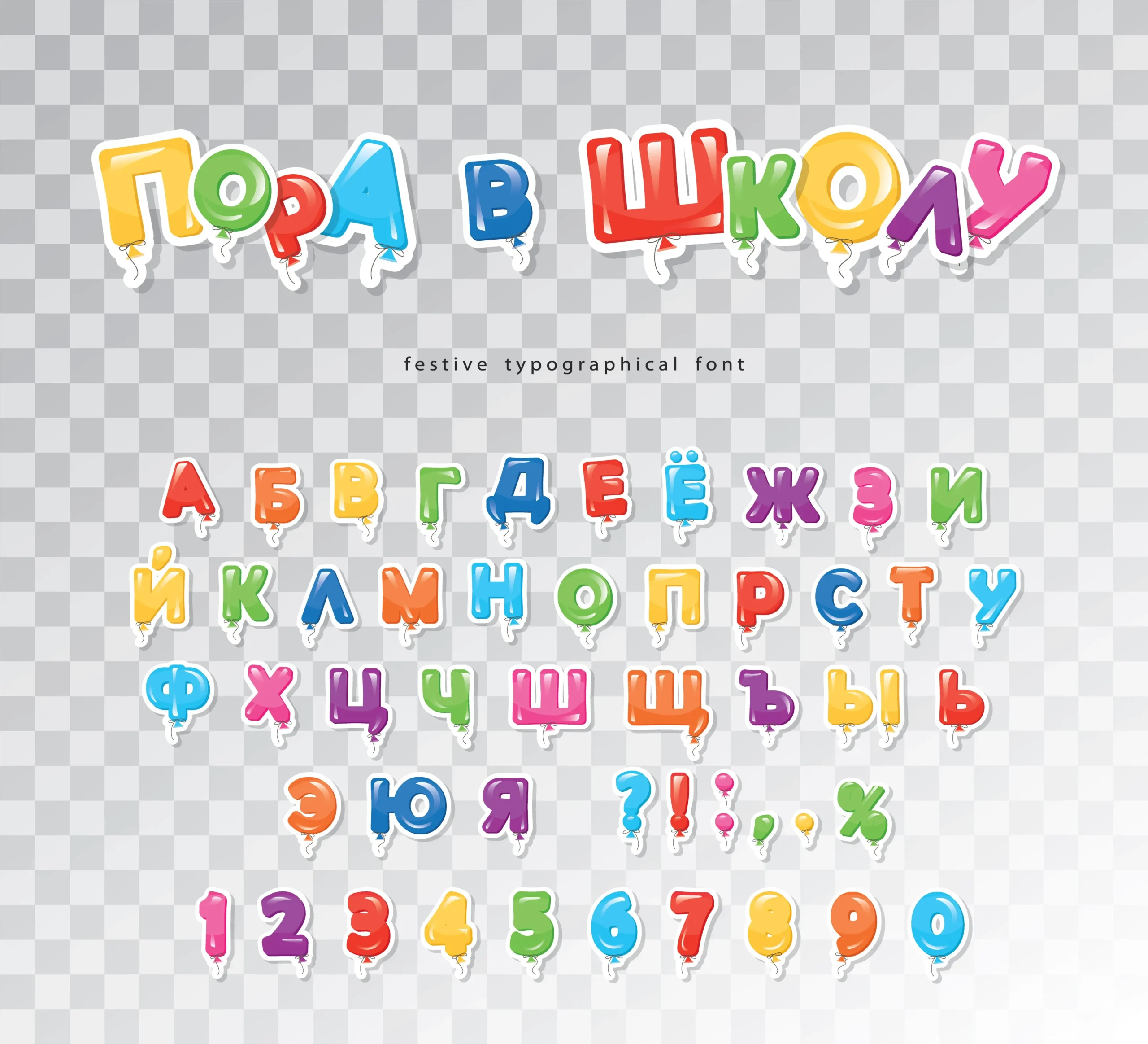
Introducing the Colorful Font For Kids, a vibrant and playful typeface designed specifically for children’s projects. This font features a variety of styles that capture the imagination, making it perfect for educational materials, children’s books, and playful branding.
- Fun and engaging letterforms
- Easy to read, suitable for young audiences
Colorful Font For Kids